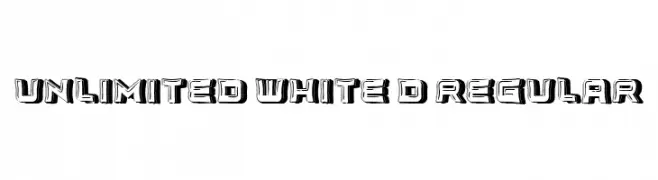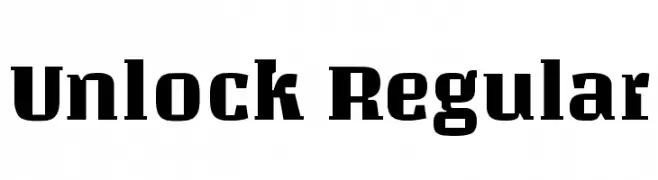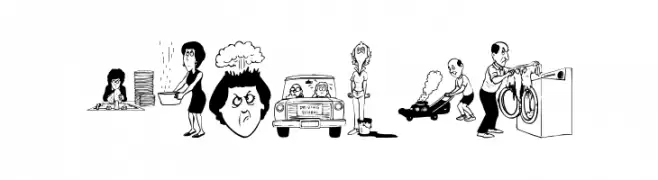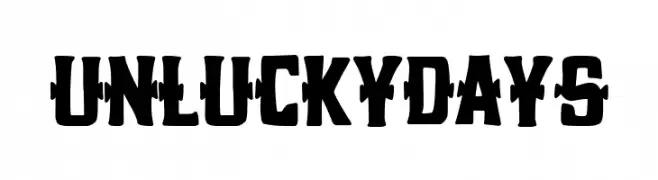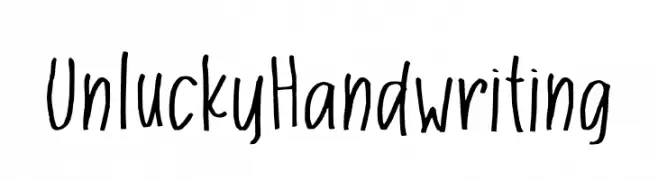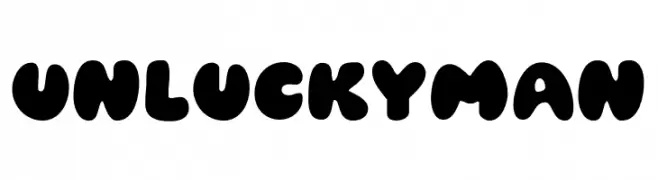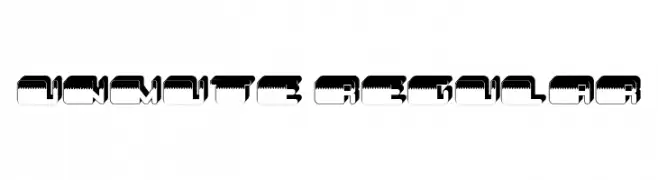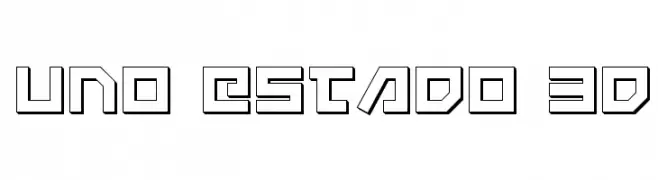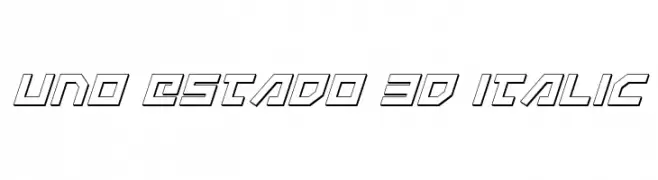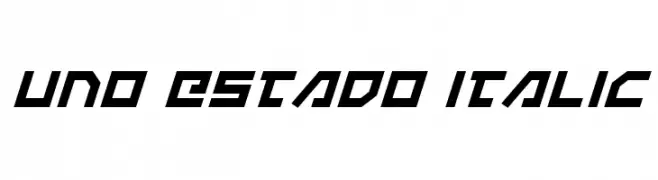
A bold, 3D geometric font with a futuristic style and strong visual impact.
A bold, three-dimensional font with a futuristic and dynamic style.
A bold, 3D font with sharp, angular edges and a shadow effect.
A bold, three-dimensional font with a futuristic and dynamic design.
A dynamic handwritten font with fluid strokes and playful curves.
A bold, slab serif font with strong, impactful characters.
An elegant and flowing script font with ornate, interconnected letterforms.
Cartoonish, illustrated font with unlucky-themed scenes for each character.
A bold, distressed display font with jagged cutouts and a horror vibe.
A playful, casual handwritten font with uneven strokes and a whimsical style.
Bold and playful rounded font.
A bold, playful handwritten font with rounded, consistent strokes.
A bold, dynamic script font with smooth, flowing curves and a handwritten feel.
A bold, italicized handwritten font with a lively and dynamic style.
A playful, casual handwritten font with smooth, rounded strokes.
A bold, energetic script font with smooth, flowing curves and a slightly slanted orientation.
A bold, italicized handwritten font with a dynamic and friendly style.
A bold, modern font with a gradient effect and rounded corners.
A bold, futuristic font with geometric shapes and a stencil-like appearance.
A bold serif font with strong vertical strokes and subtle curves, offering a classic yet modern appeal.
A bold, italic serif font with classic elegance and modern flair.
Elegant serif font with an italic slant and moderate contrast.
A classic serif font with elegant strokes and balanced structure.
Bold and italic serif font with a classic yet modern appeal.
A classic serif font with elegant and refined letterforms.
A dynamic, cursive script font with a brush-like texture.
A bold, geometric 3D font with a futuristic style.
A bold, 3D geometric font with a futuristic and italicized style.
A bold, angular italic font with a futuristic and dynamic style.
A playful, bold font with rounded edges and a bubbly appearance.
A bold, expressive handwritten font with a modern, dynamic style.